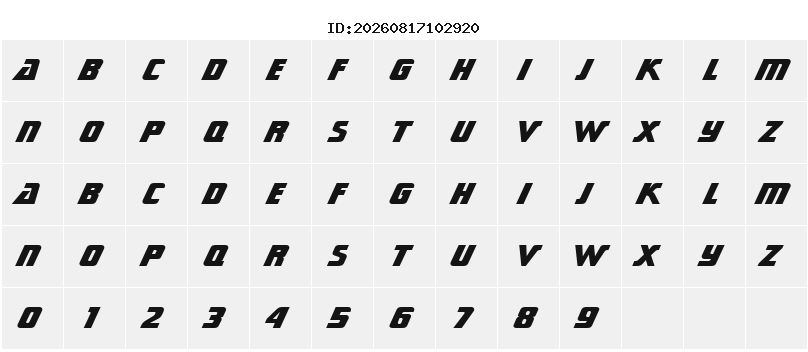
• Font Name: SonicCutThru Hv BT
• Font Style: Heavy
• Font ID: Sonic Cut Thru Heavy, Square 051
• Full Font Name: Sonic Cut Thru Heavy BT
• PostScript Name: SonicCutThruBT-Heavy
About SonicCutThru Hv BT.ttf
SonicCutThru Hv BT.ttf is a modern, elegant sans-serif font designed for ultimate readability and visual harmony. Perfect for branding, headlines, web design, and print materials.